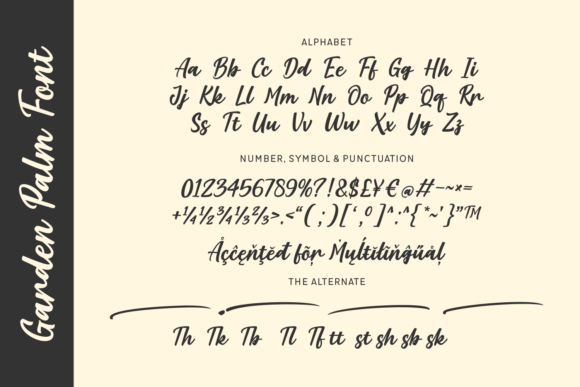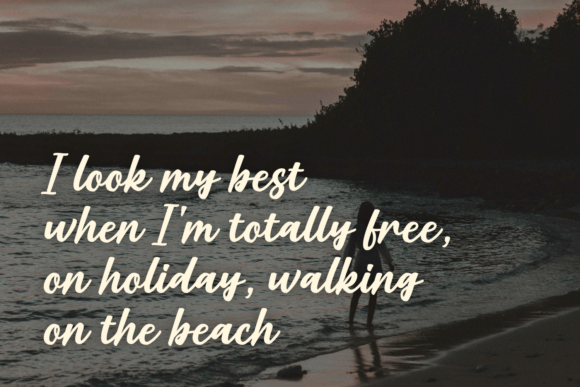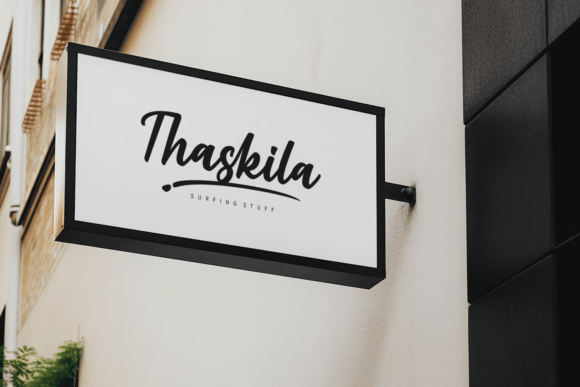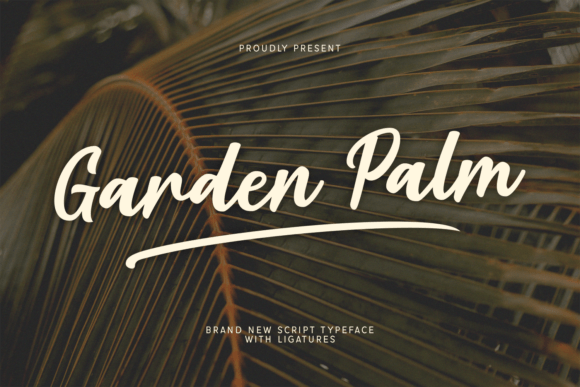
Garden Palm Font: Elevate Your Design with a Touch of Nature
In the world of typography, few fonts capture the essence of nature as effortlessly as Garden Palm. This smooth and modern script typeface is designed to bring a sense of elegance and refinement to any project, while its organic and flowing strokes evoke the beauty of the natural world. Whether you’re a designer, crafter, or simply someone who appreciates the art of typography, Garden Palm is a font that is sure to inspire.
The Characteristics of Garden Palm
Garden Palm is a script typeface that is characterized by its natural, flowing strokes and elegant ligatures. The font features a casual yet refined style that makes it perfect for a wide range of applications, from branding and logos to product packaging, invitations, and social media posts. The smooth and modern design of Garden Palm ensures that it is highly legible, even at small sizes, making it a versatile font that can be used in a variety of contexts.
For designers and crafters, Garden Palm offers a wealth of creative possibilities. The font’s elegant and refined style makes it perfect for use in:
- Branding and logos: Create a lasting impression with a custom logo that showcases the beauty of Garden Palm.
- Product packaging: Add a touch of sophistication to your product packaging with Garden Palm’s elegant script.
- Invitations and stationery: Make your invitations and stationery stand out with Garden Palm’s flowing strokes and natural charm.
- Social media posts: Elevate your social media posts with Garden Palm’s modern and refined style.
The Benefits of Using Garden Palm
So why choose Garden Palm for your design projects? Here are just a few benefits of using this beautiful font:
- Versatility: Garden Palm is a highly versatile font that can be used in a wide range of applications.
- Elegance: The font’s elegant and refined style makes it perfect for projects that require a touch of sophistication.
- Legibility: Garden Palm is highly legible, even at small sizes, making it perfect for use in body text or captions.
- Uniqueness: Garden Palm’s unique blend of modern and natural styles sets it apart from other fonts.
Tips for Using Garden Palm Effectively
To get the most out of Garden Palm, here are a few tips to keep in mind:
- Use it sparingly: Garden Palm is a font that is best used sparingly, as its elegance and refinement can be lost if overused.
- Pair it with contrasting fonts: Pair Garden Palm with contrasting fonts to create visual interest and hierarchy.
- Experiment with different sizes: Experiment with different sizes and styles to find the perfect combination for your project.
In conclusion, Garden Palm is a beautiful and versatile font that is perfect for designers, crafters, and anyone who appreciates the art of typography. Its smooth and modern script style, combined with its natural and flowing strokes, make it a font that is sure to elevate any project. Whether you’re looking to create a custom logo, add a touch of elegance to your product packaging, or simply want to make your social media posts stand out, Garden Palm is a font that is sure to inspire.
Get Creative with Garden Palm